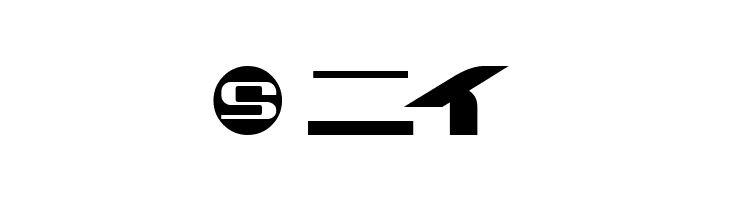
A bold, geometric font with a futuristic, angular design.
A bold, angular font with a futuristic, three-dimensional look.
A modern italic font with dynamic curves and a sleek, energetic style.
A modern, geometric sans-serif font with a clean and professional look.
A modern, geometric sans-serif font with clean lines and uniform structure.
A sleek, modern italic font with clean lines and consistent stroke width.
A classic serif font with moderate contrast and pronounced serifs, offering elegance and readability.
A classic serif font with elegant strokes and a modern touch.
A bold, expressive brush-style font with dynamic, hand-painted strokes.
A bold, geometric font with a futuristic and modern aesthetic.